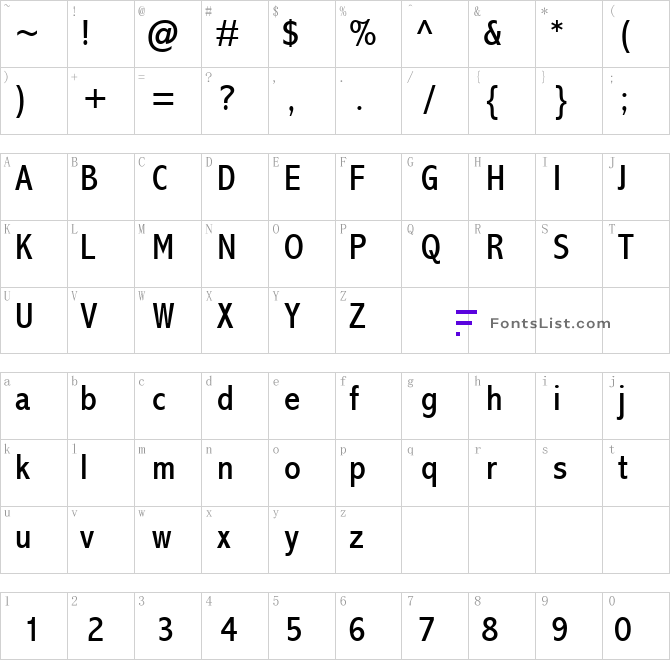
- Font Name:Abadi MT Condensed
Abadi-MT-Condensed-copy-1-.ttf is a very beautiful artistic font, Abadi-MT-Condensed-copy-1-.ttf is widely used in the design and printing of various books and pictures,Abadi-MT-Condensed-copy-1-.ttf has a strong visual impact,Abadi-MT-Condensed-copy-1-.ttf is a commonly used font in newspapers, magazines and books, and is used in posters, e-commerce Poster design, store design, logo design, font design and other fields.Abadi-MT-Condensed-copy-1-.